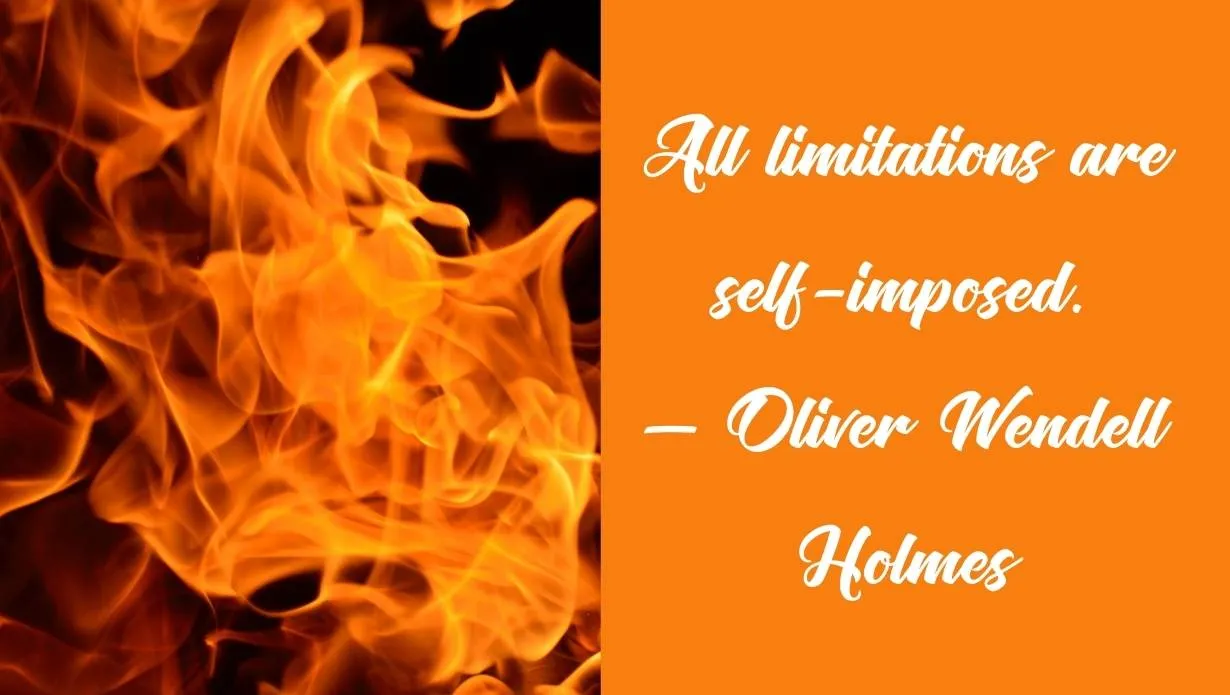
Today we were going to present the very lovely and active font that is known as Flaming Font. This font belongs to the Script Font Family. It is designed by the notable graphic designer Herlan Nawwi. This typeface is published under the banner of the Sikifonts foundry.
This typeface is very similar to the Wakanda Font. The cutting edge of this typeface naturally appears in the contact of calligraphy. You can use the online generator tool for designing purposes they can change your textures in different formats.